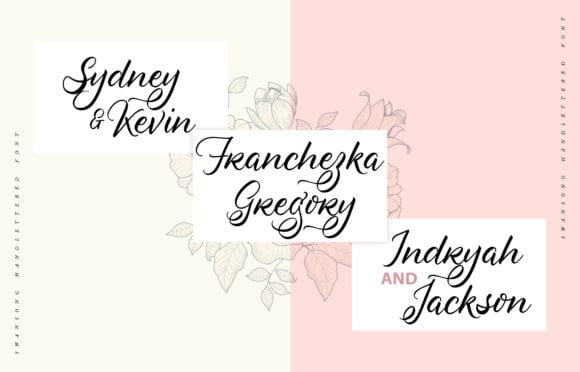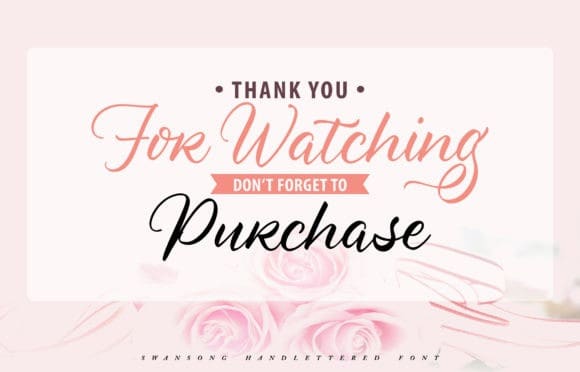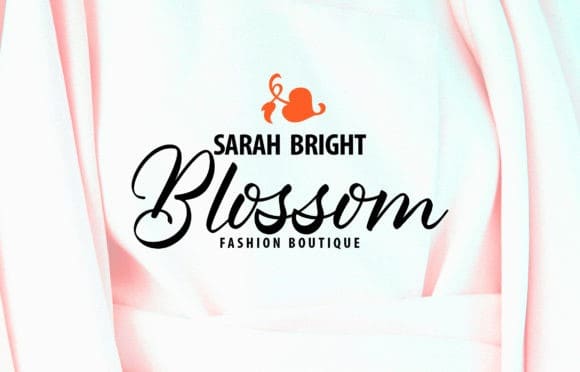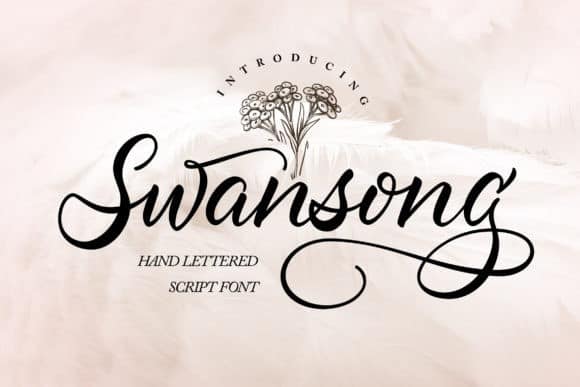
Swansong Calligraphy Font
Swansong Calligraphy Font is a classy handwritten font. Made for any professional project branding. Every letter has a unique and beautiful touch. Made from font designer named Vunira. It’s an incredibly beautiful and elegant calligraphic script with gorgeous swashes. Fall in love with its harmonious look & feel, and turn any crafting idea into a true standout!